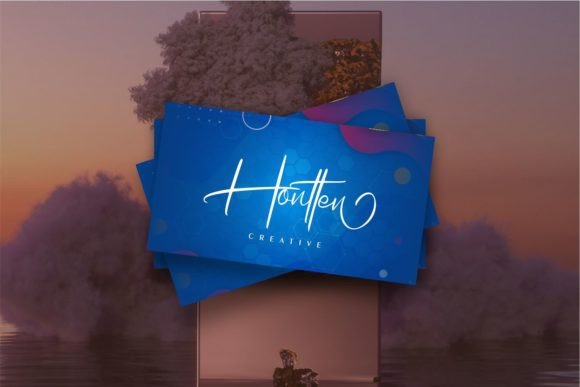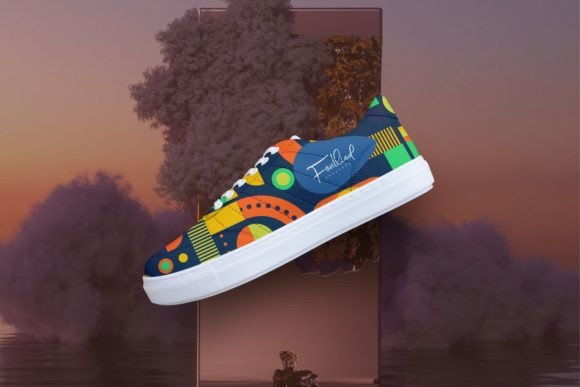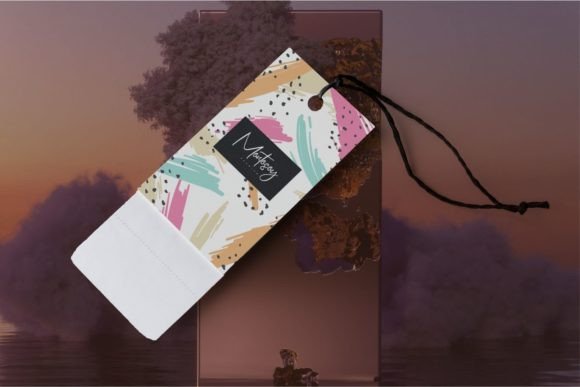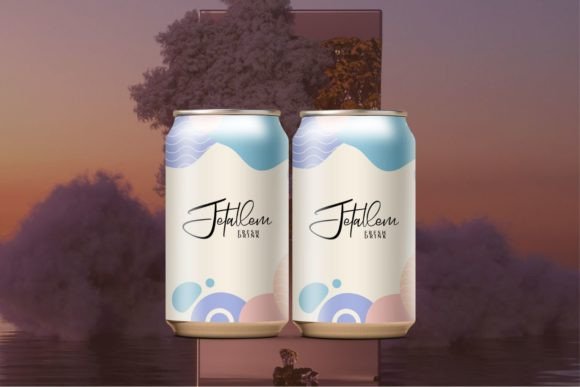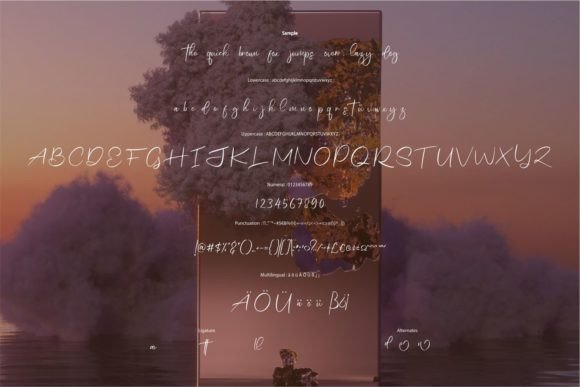
Introducing Bettnode Font: Elevate Your Designs with Modern Calligraphy
In the world of typography, fonts play a crucial role in conveying the tone and aesthetic of a design. For designers and crafters looking to add a touch of elegance and sophistication to their projects, the Bettnode Font is an excellent choice. This modern script font, with its beautiful calligraphy style, is perfect for a wide range of applications, from invitations and greeting cards to branding materials, business cards, quotes, posters, and more.
What is Bettnode Font?
Bettnode Font is a contemporary script font that embodies the fluidity and expressiveness of calligraphy. Its unique and stylish letterforms are designed to bring a sense of luxury and refinement to any design project. Whether you’re working on a wedding invitation, a branding campaign, or a social media graphic, Bettnode Font is sure to make a lasting impression.
Key Features of Bettnode Font
- Modern Calligraphy Style: Bettnode Font boasts a fresh and modern take on traditional calligraphy, making it perfect for designers looking for a font that’s both timeless and trendy.
- Elegant Letterforms: Each letter in the Bettnode Font is carefully crafted to ensure a smooth flow and a high level of readability, making it ideal for both short and long texts.
- Versatile: From formal invitations to creative branding materials, Bettnode Font adapts seamlessly to various design contexts.
Use Cases for Bettnode Font
The versatility of Bettnode Font makes it suitable for a multitude of design projects. Here are some popular use cases:
- Wedding Invitations and Stationery: Add a touch of romance and sophistication to your wedding designs with Bettnode Font.
- Branding and Logos: Create a memorable brand identity with a font that exudes elegance and professionalism.
- Greeting Cards: Whether it’s a birthday, anniversary, or holiday card, Bettnode Font will make your greetings stand out.
- Business Cards: Elevate your business card design with a font that’s both stylish and easy to read.
- Posters and Flyers: Grab attention with Bettnode Font on your promotional materials, events posters, or informational flyers.
- Social Media Graphics: Enhance your social media presence with eye-catching graphics that feature Bettnode Font.
Tips for Using Bettnode Font Effectively
To get the most out of Bettnode Font, consider the following tips:
- Pair with Complementary Fonts: Combine Bettnode Font with sans-serif fonts for contrast and visual interest.
- Adjust Letter Spacing: For optimal readability, adjust the letter spacing according to the size and context of your text.
- Experiment with Colors: While black and dark tones work well with Bettnode Font, don’t be afraid to experiment with colors that match your brand or design theme.
Bettnode Font is a versatile and stylish addition to any designer’s toolkit. Its modern calligraphy style, elegant letterforms, and wide range of applications make it an excellent choice for projects that demand a touch of sophistication. Whether you’re designing for print or digital platforms, Bettnode Font is sure to elevate your work and leave a lasting impression on your audience.